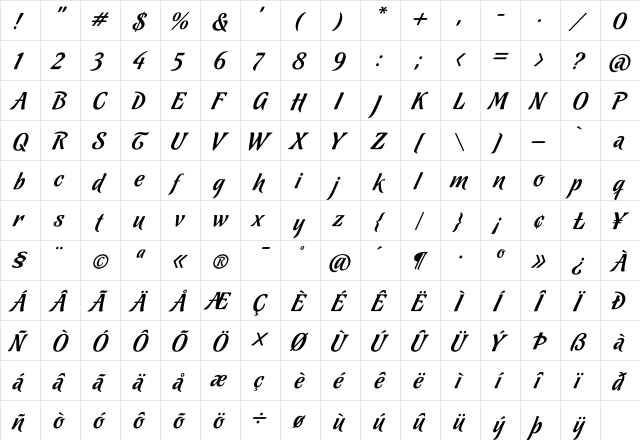
Chocolate Caliente Regular Font Preview
Chocolate Caliente Regular
Chocolate Caliente Regular Font Details
Design Context for Chocolate Caliente Typeface
Chocolate Caliente is a composed and adaptable typeface that performs quietly and consistently across a wide range of design contexts.
Pro Tip: Use Chocolate Caliente in both headline and body roles to test its range before committing to a single application.